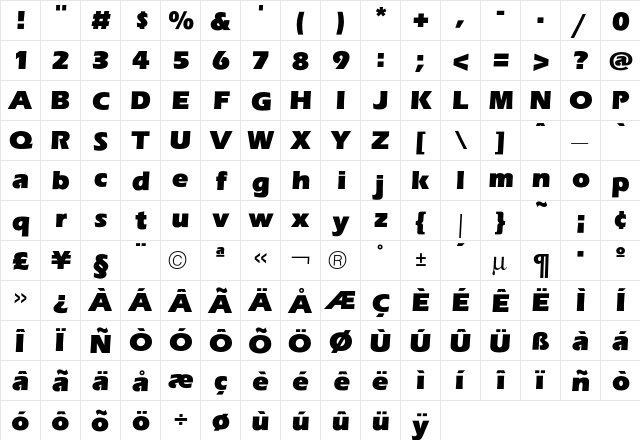
Eras Ultra
Design Context for Eras Typeface
Eras is a composed and adaptable typeface that performs quietly and consistently across a wide range of design contexts.